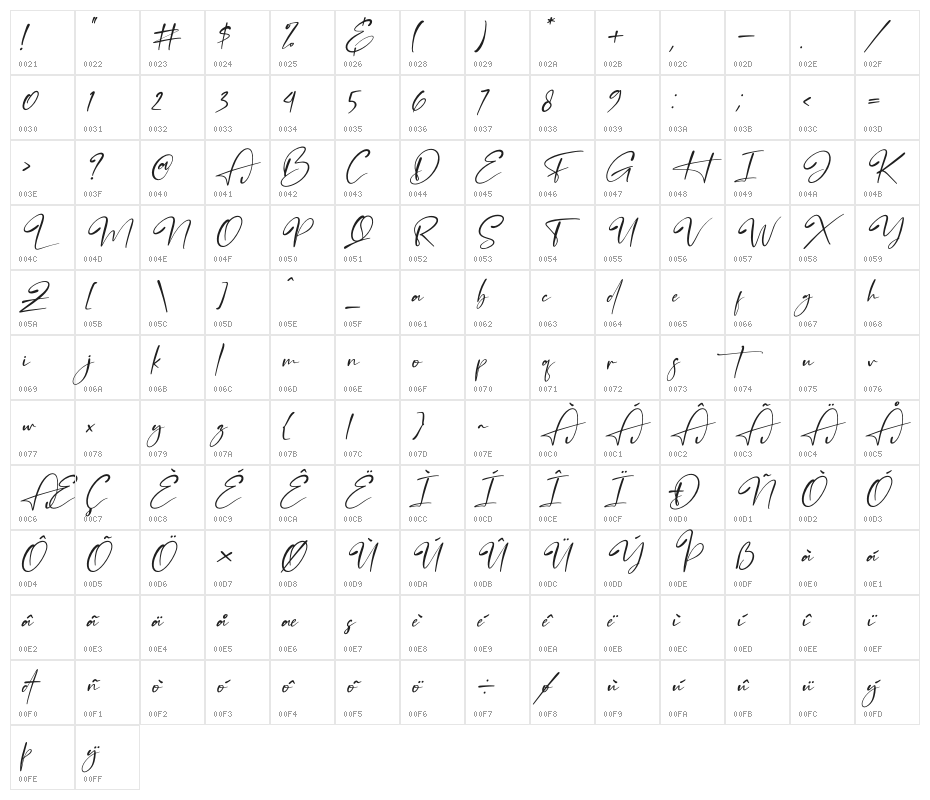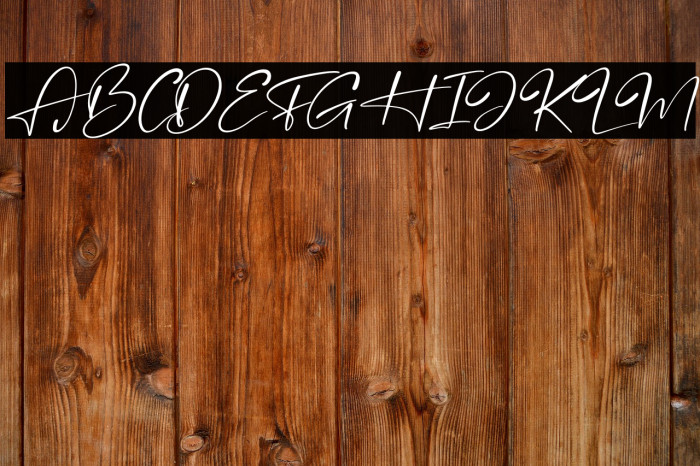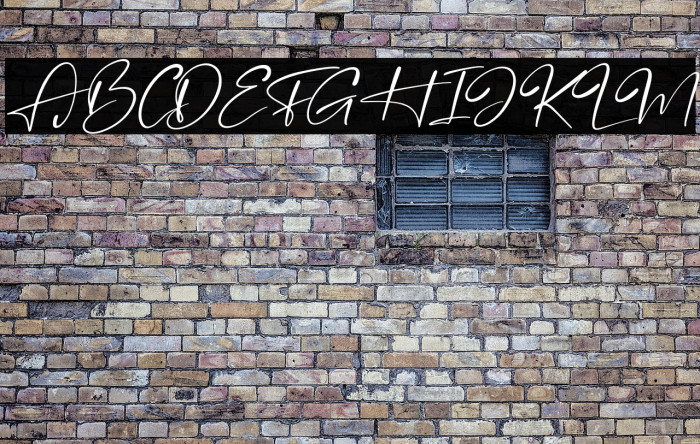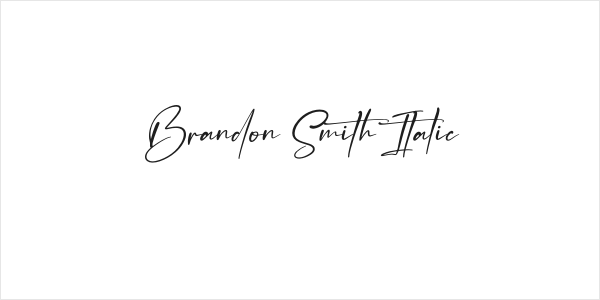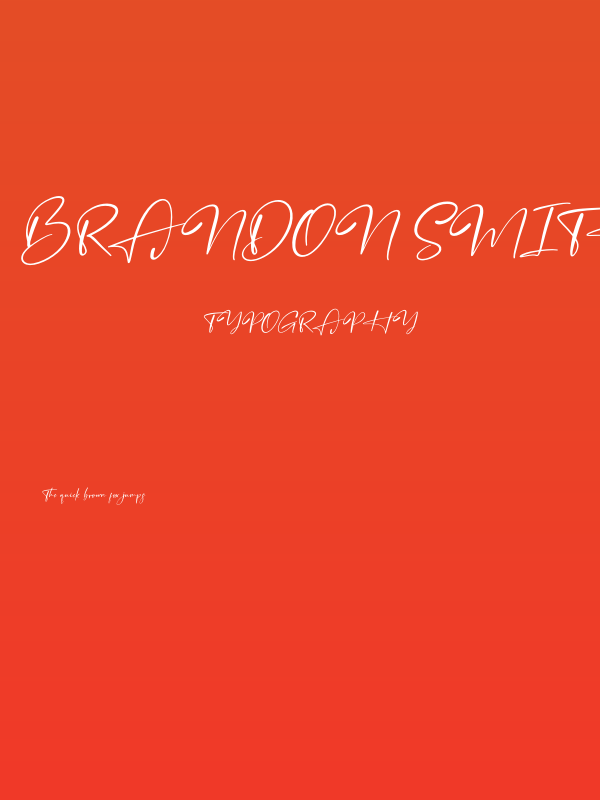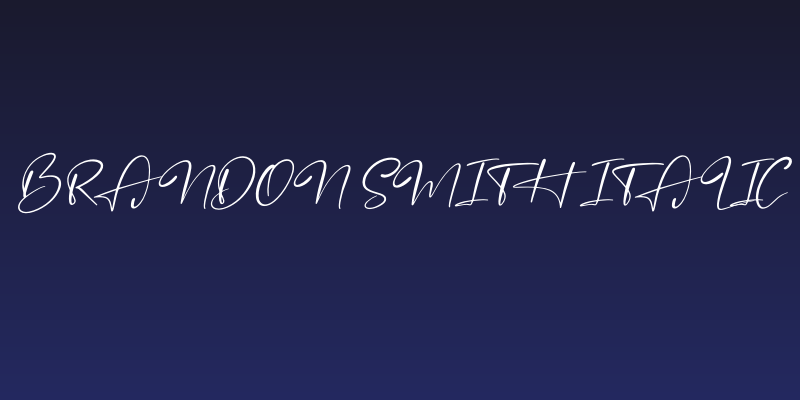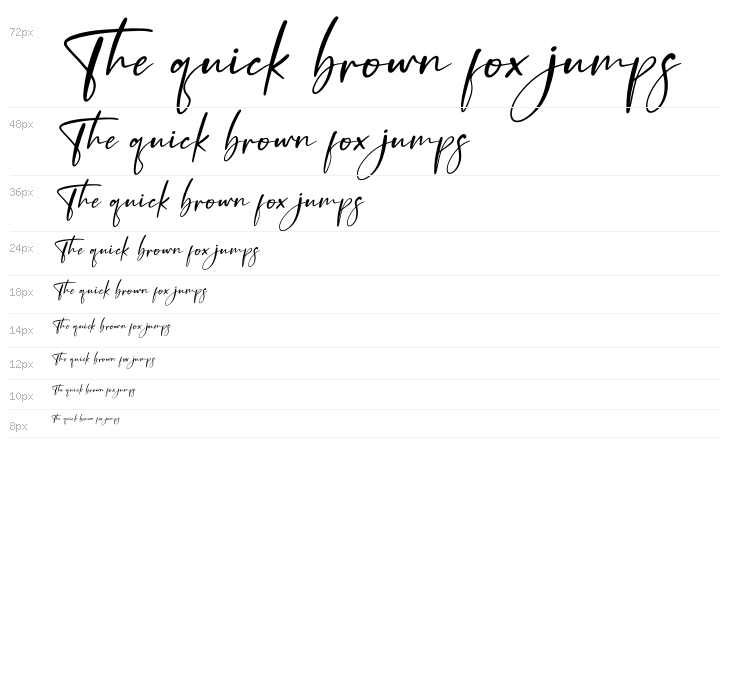
Brandon Smith Italic Font
Brandon Smith Italic Description
This font exudes a dynamic and flowing style, characterized by its elegant and cursive script. The letters are interconnected with smooth, sweeping strokes that give a sense of motion and fluidity. The uppercase letters are bold and prominent, while the lowercase letters maintain a consistent flow, enhancing readability. The numerals and special characters are designed with the same fluidity, ensuring a cohesive look across all text. This font is perfect for adding a personal and sophisticated touch to any project.